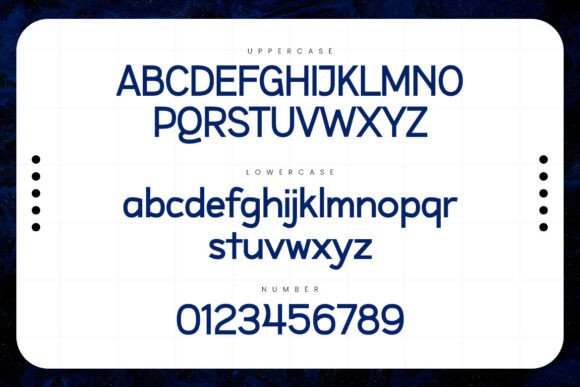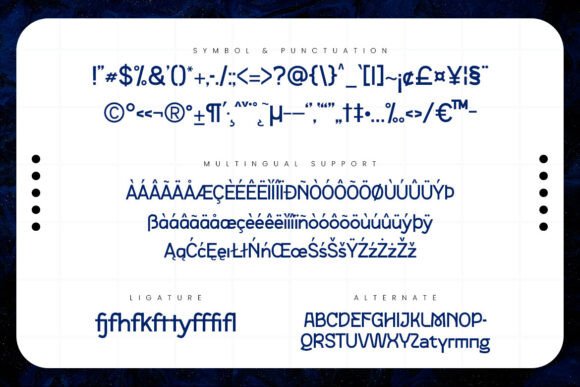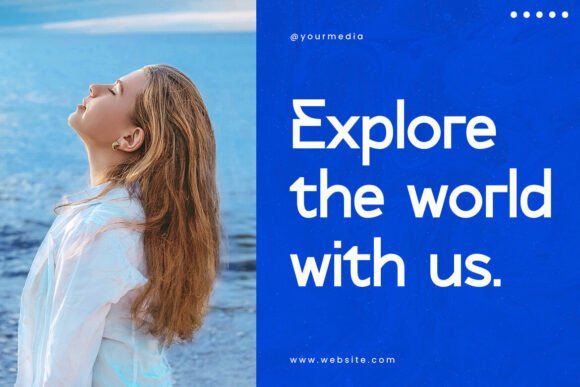
Introduction to Magateno Font
Introducing Magateno, a distinctive sans serif typeface masterfully fusing clean geometry and imaginative letterforms.
This font breathes new life into typography with its ultra-modern approach The lean, minimalist aesthetic of Magateno has been crafted for striking branding, innovative web design, captivating posters, and sleek editorial layouts that crave a future-forward, visually arresting style.
Key Features of Magateno Font